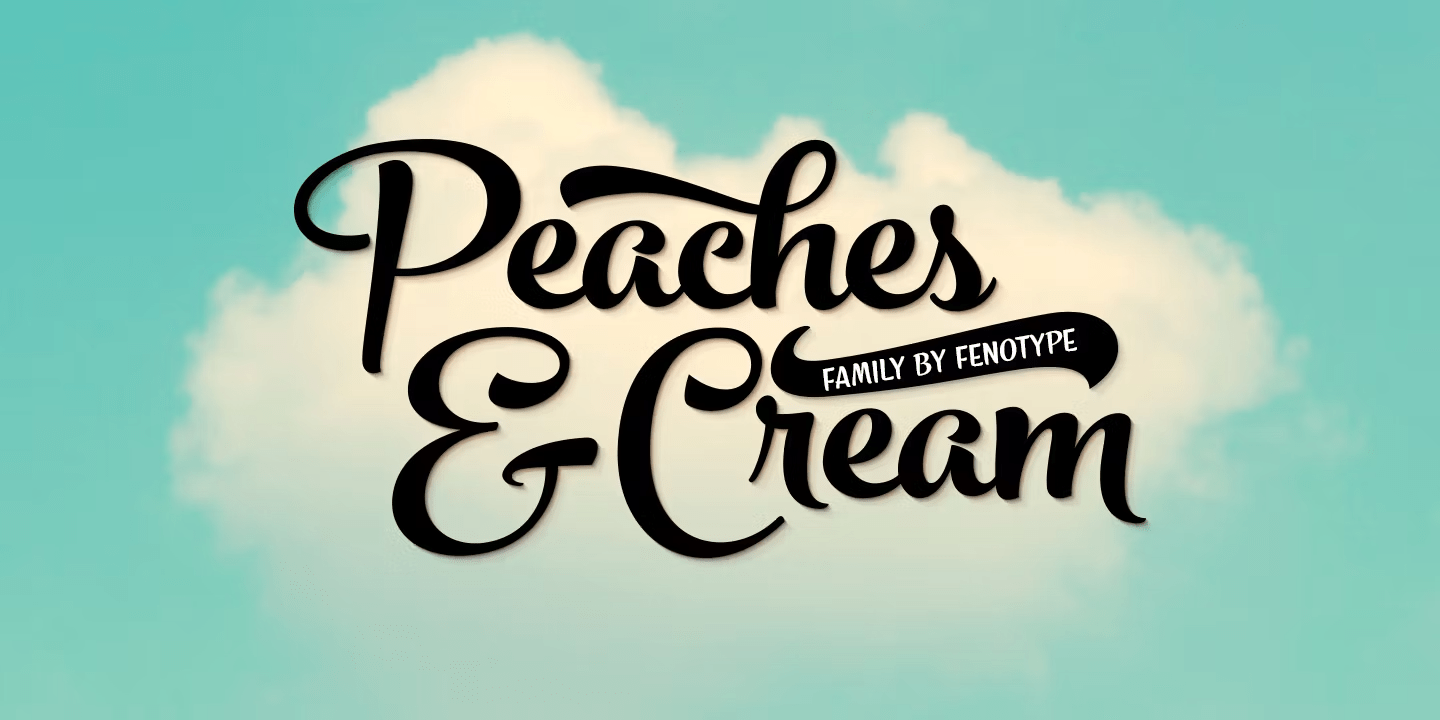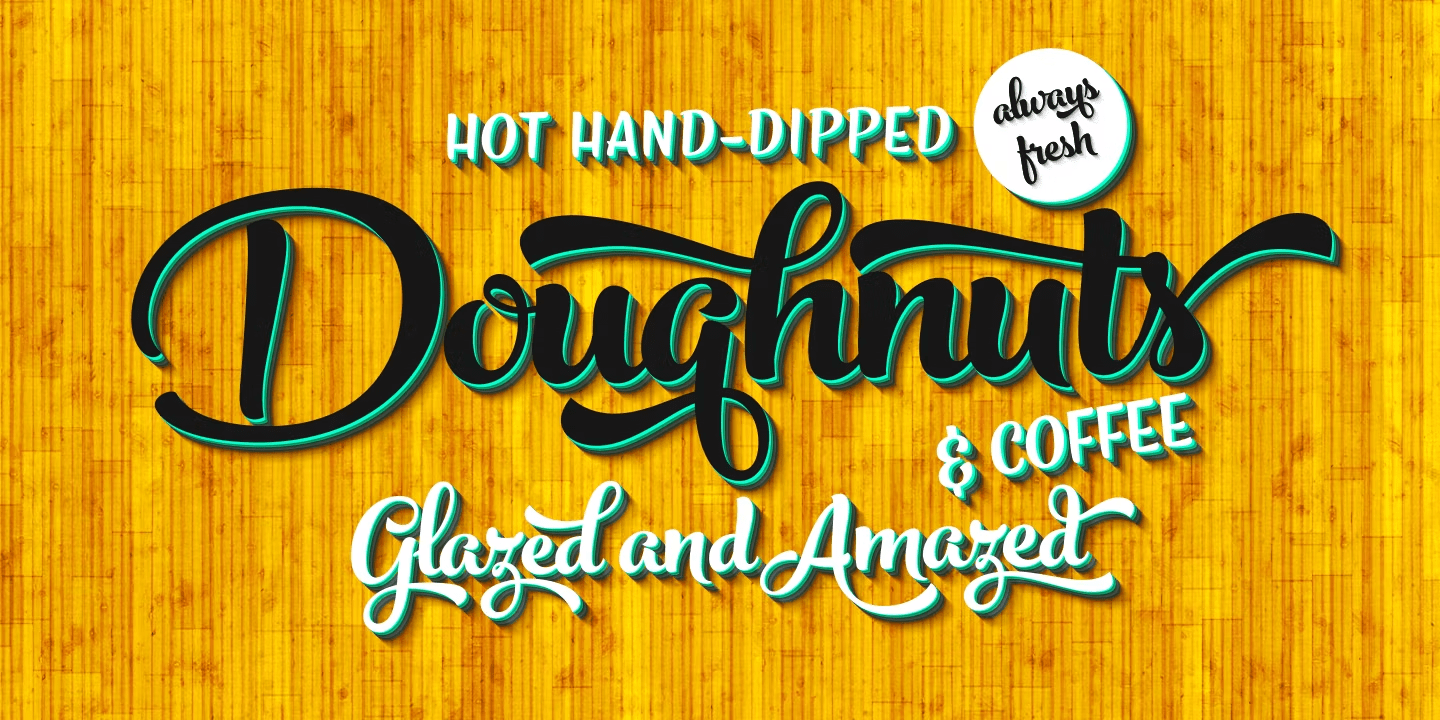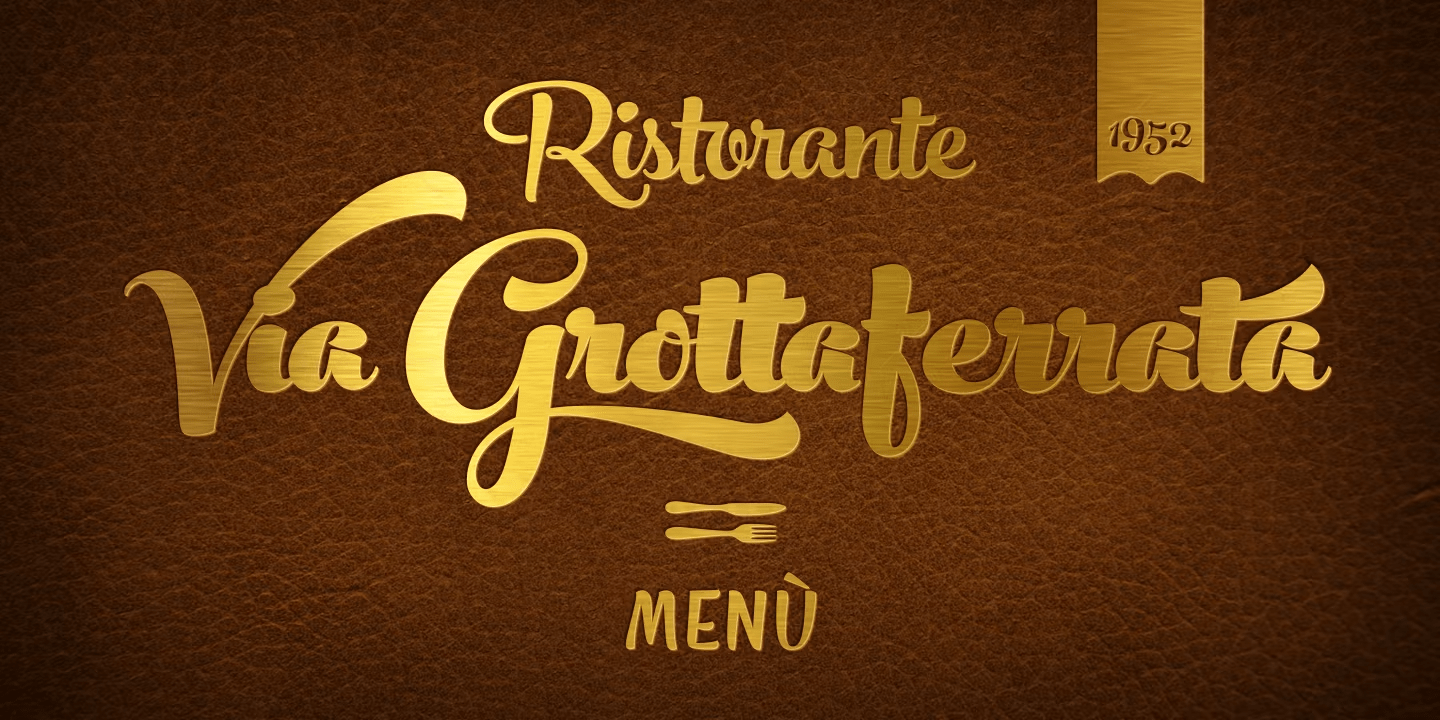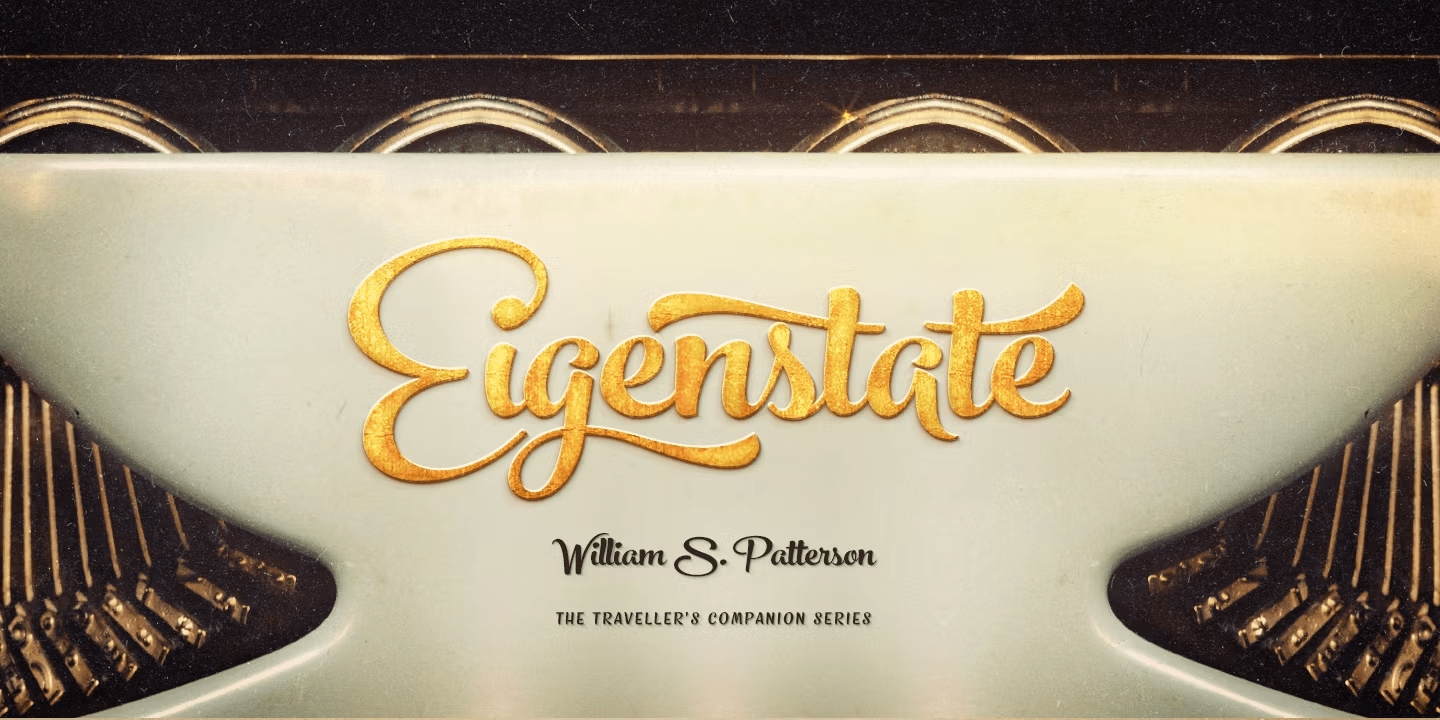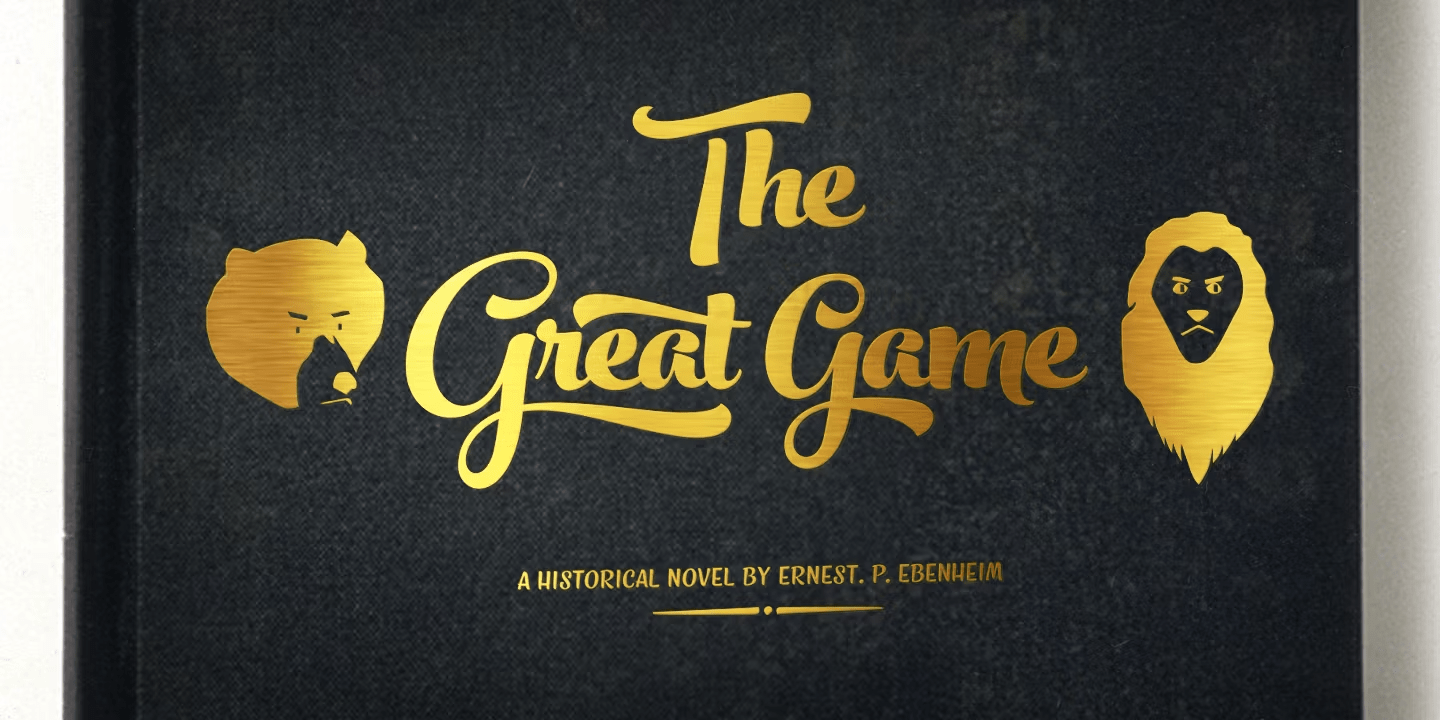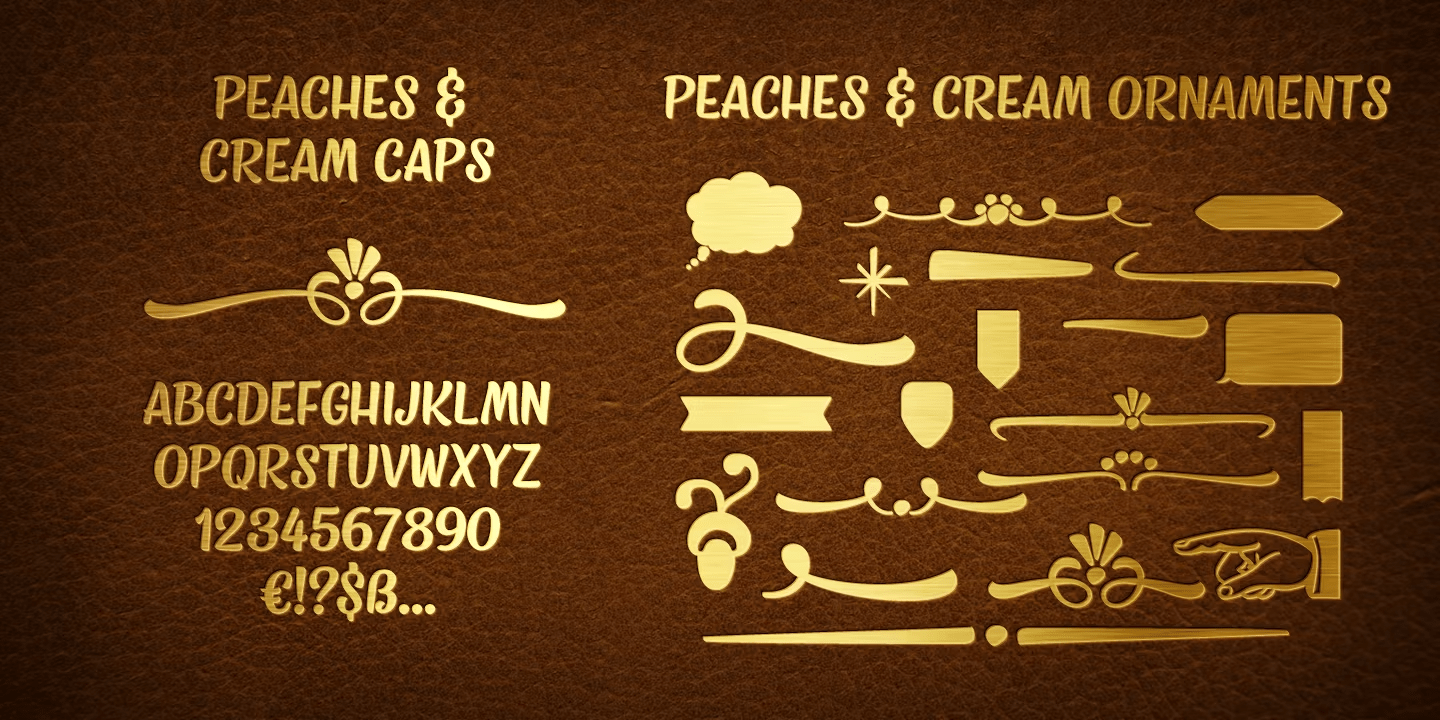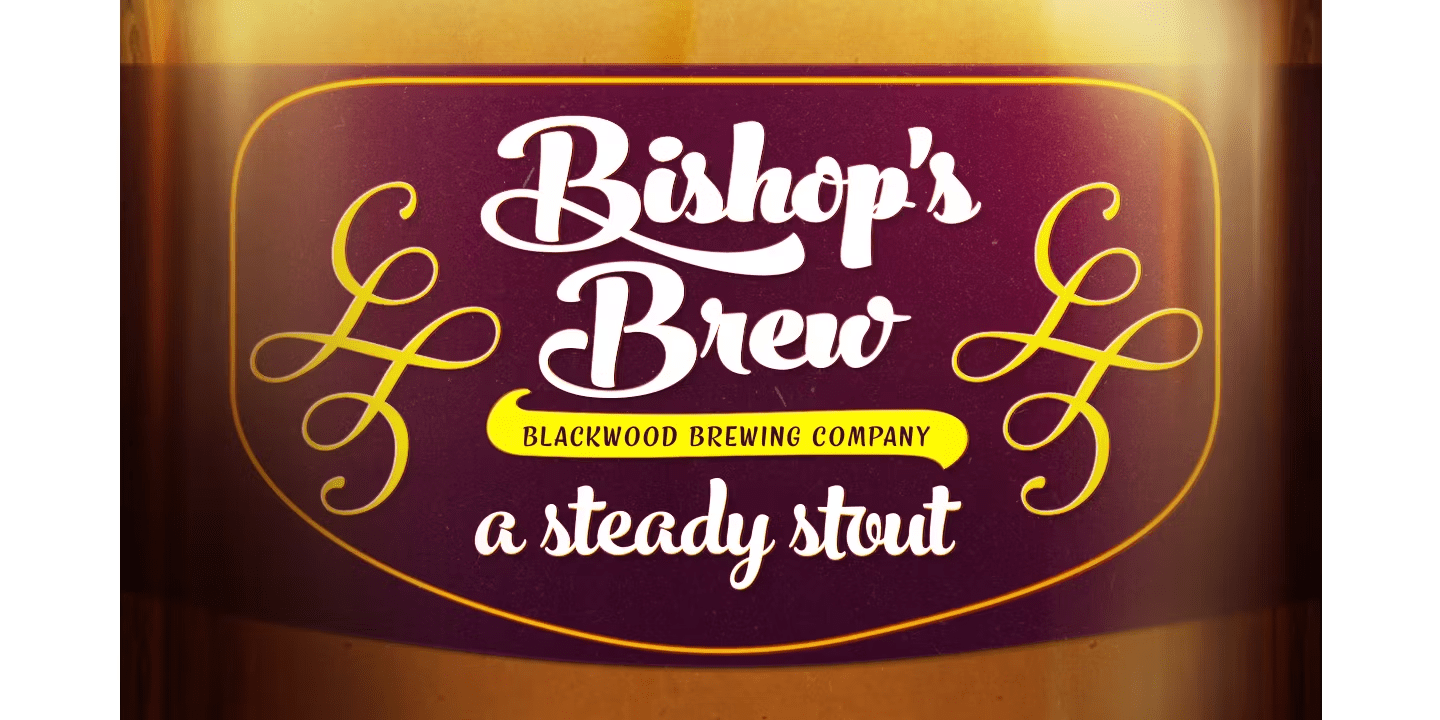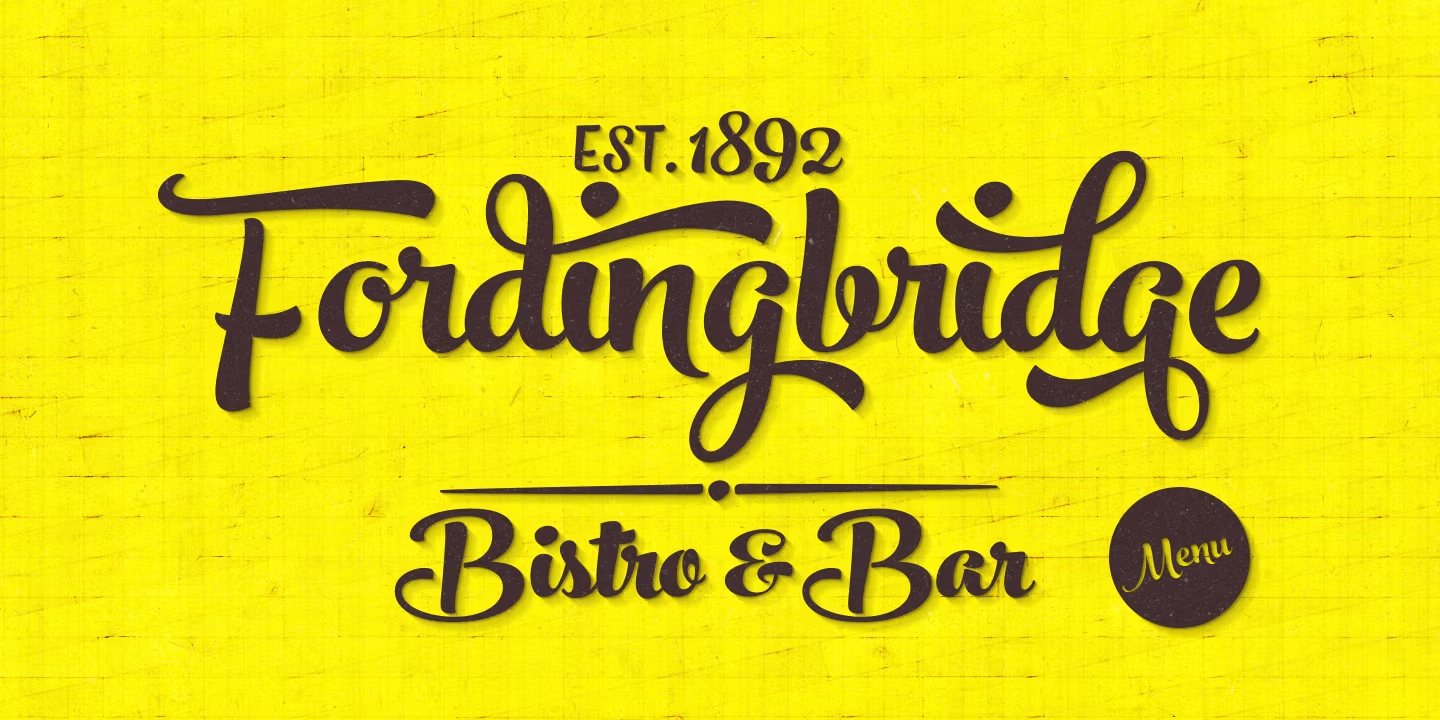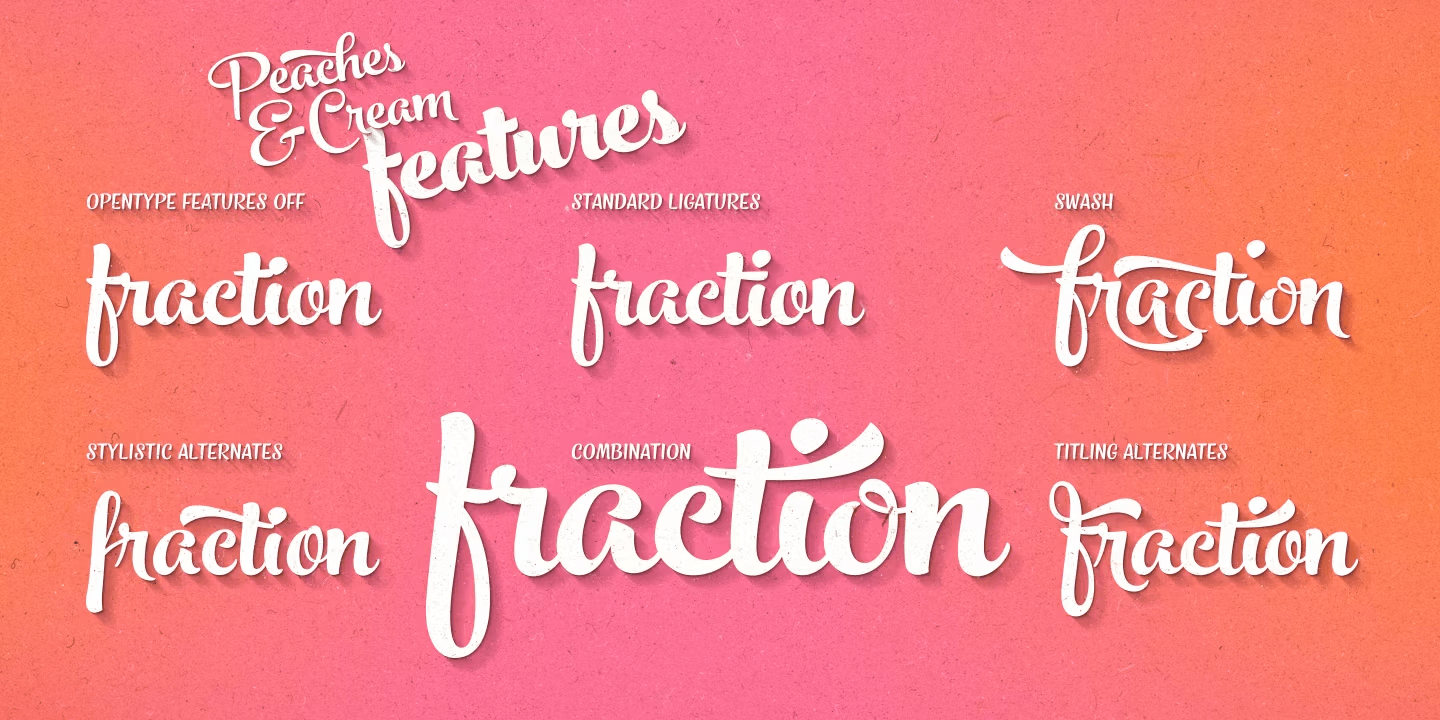
Peaches And Cream
Font Family by Fenotype
Peaches and Cream is a bold brush style script family of three weights, ornament set and an all caps font. Peaches and Cream is equipped with plenty of OpenType features: To activate the alternates click on Swash, Stylistic or Titling Alternates in any OpenType savvy program or manually select the characters from Glyph Palette.
Combine Peaches and Cream with Peaches and Cream Ornaments and Peaches and Cream Caps to complete your designs.
Peaches and Cream is an effective font for creating ambitious headlines, logos & posters with a custom-made feeling.